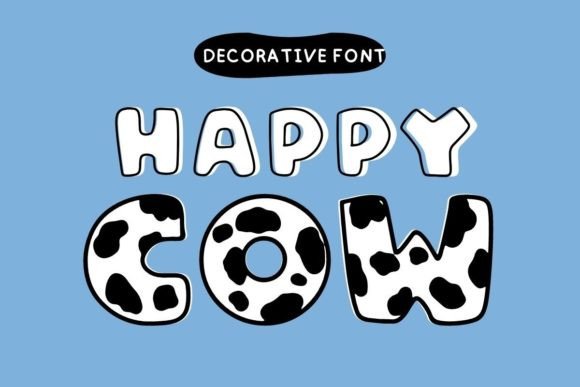
Introducing Happy Cow Font, the Best Font For Diary that will make your designs look even more captivating and fun! Created by zikadoozz, this cute and friendly decorative font is the perfect choice for anyone looking to add a touch of beauty and playfulness to their creations.
With its bold and fun design, Happy Cow Font is perfect for a wide range of designs, including cartoon-related designs, children’s games, quotes, titles, brand names, book covers, posters, and much more! Its unique and eye-catching style will surely capture the attention of anyone who sees it, making it a great choice for those who want to create designs that stand out.
Whether you are a professional designer or someone who simply enjoys creating beautiful designs, Happy Cow Font is a must-have in your collection. Its versatility and unique design make it the perfect font for anyone looking to add a touch of creativity and beauty to their designs.